Japanese Yakumono (Punctuation Marks and Symbols) 01: “Punctuation Mark”
Japanese yakumono (punctuation marks and symbols) is a generic term for symbols (punctuation marks, parentheses, etc.) apart from words and numbers used in typesetting. In this series, I would like to mainly introduce points and anecdotes on creating glyphs created along with Japanese alongside yakumono. I would like to introduce punctuation marks (“。” and “、”), which are frequently used yakumono this time.
A comma called “ten” (“、”) is created in accordance with the design of dots in kana and kanji. A little square-like dot in TP Mincho Low Contrast, and a dot in Kinshachi Font Hime that resembles the brush connection to the next character, etc. give a sense of the individuality of the font with just a comma.
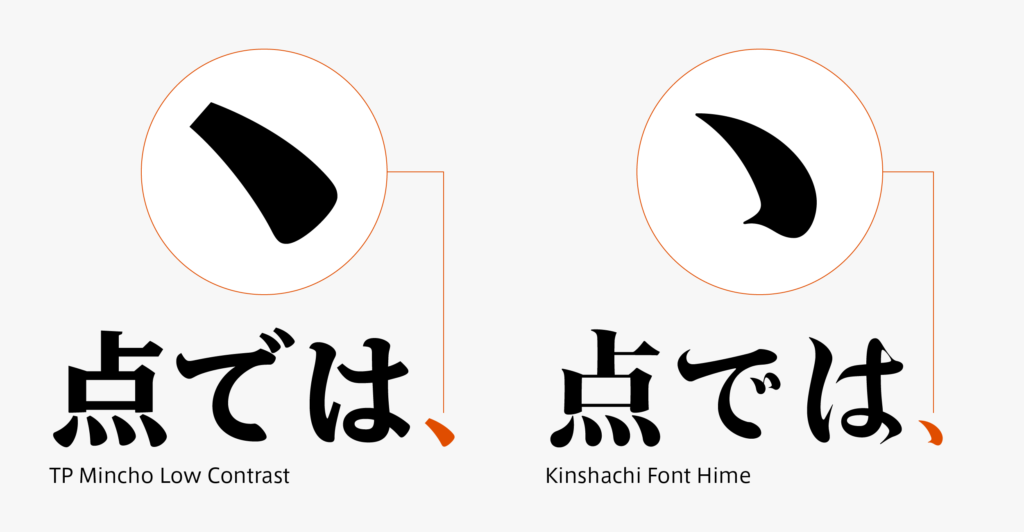
A period called “maru” (“。”) is often designed in a perfect circle as if written with a compass. As there is no part with a perfect circle in kana and kanji, I often feel strange about the shape of the period. Similarly, semi-voiced dot (“゜”) is basically a perfect circle. As many of you may already know, there were no punctuation marks, voiced dots, and semi-voiced dots in Japanese for a long time – the present use only began from the Meiji period. This may be the key to solving the mystery of the perfect circle that suddenly appeared in differences of the histories of kana and kanji.